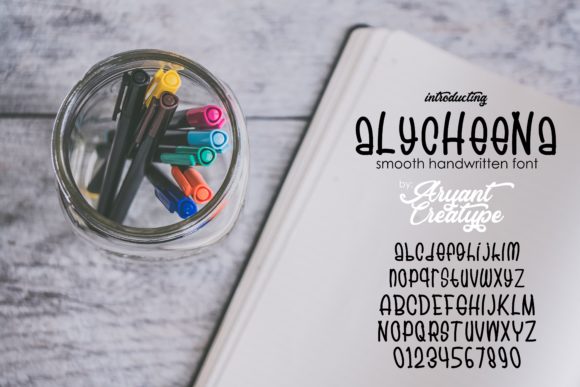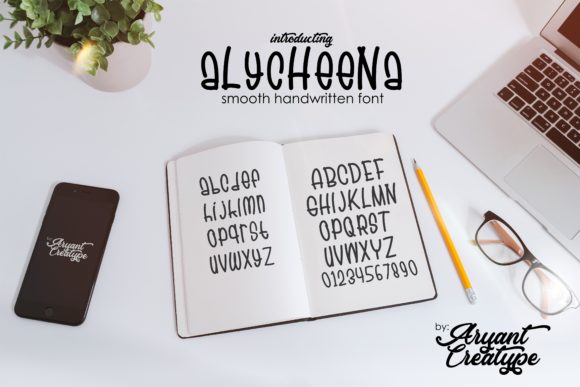
Alychenna Font
About Alychenna Font
Alychenna is a stunning and bold handwritten font with a playful vibe. Use it to add a personal feel to any design project.